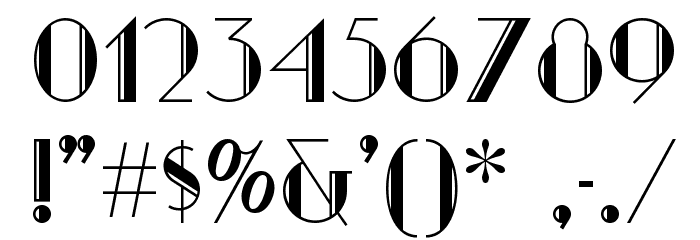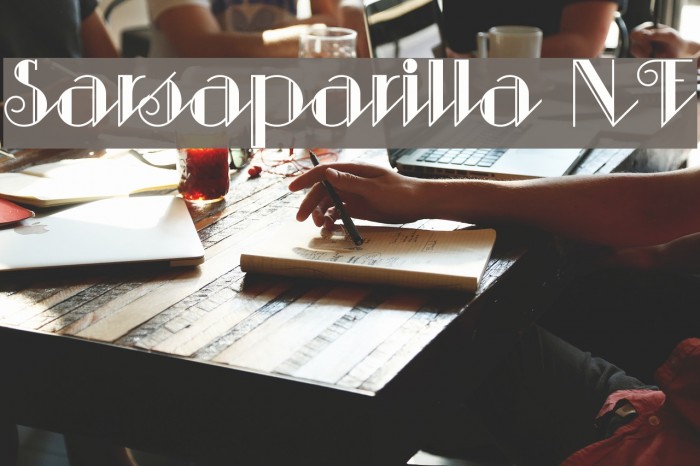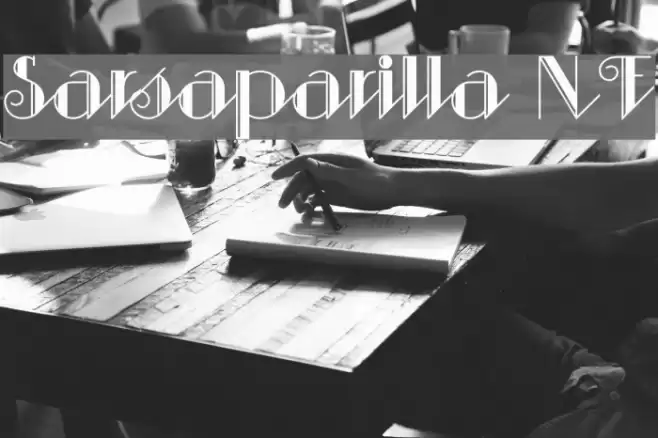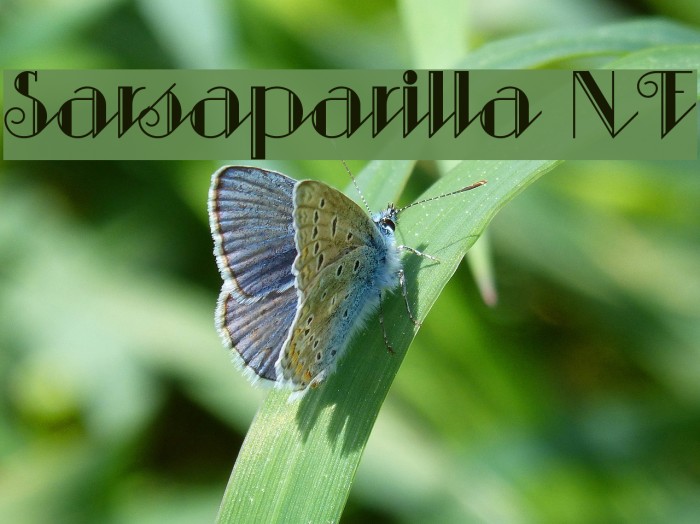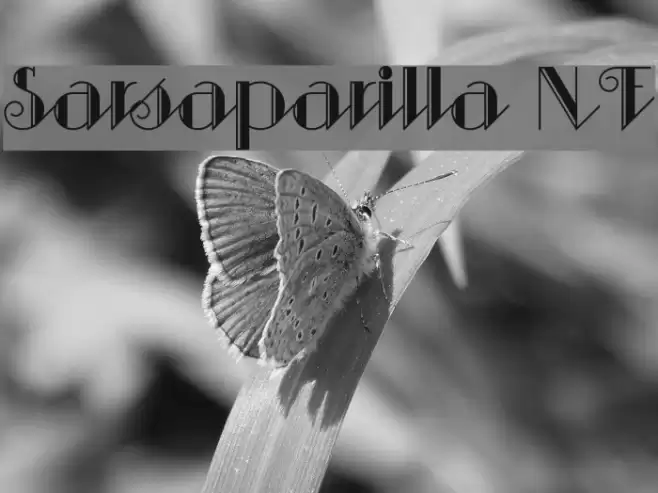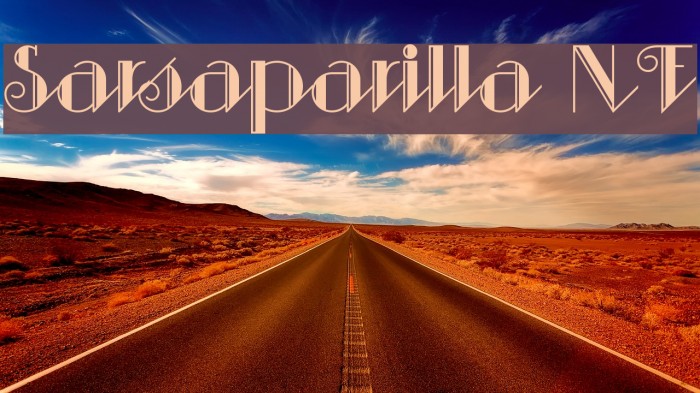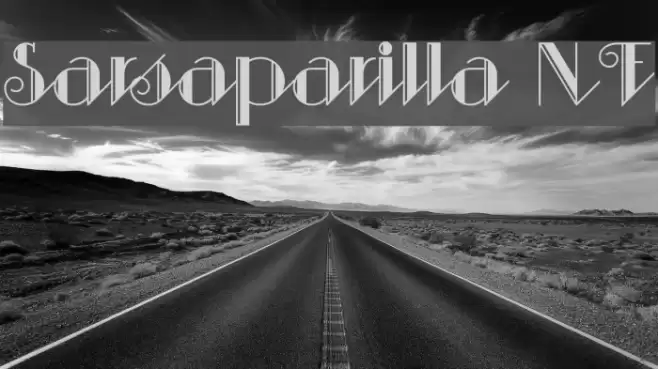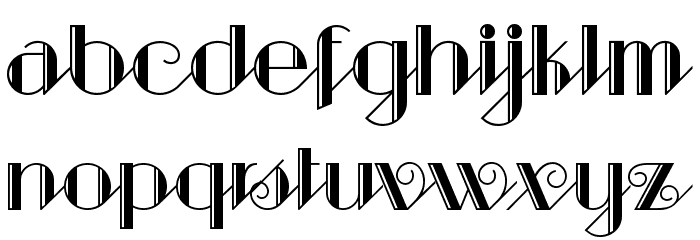
Sarsaparilla NF Font
Sarsaparilla NF Description
This font features a unique blend of geometric and decorative elements, characterized by its bold, angular lines and intricate curves. The uppercase letters exhibit a strong, architectural presence with sharp angles and a sense of symmetry, while the lowercase letters maintain a more fluid and whimsical style. The numerals are distinct and maintain the geometric theme, offering a cohesive look across all characters. Special characters are designed with flair, adding to the font's overall decorative appeal. This font is ideal for projects that require a touch of elegance and sophistication, while still maintaining a modern edge.
| Overall Style | Modern, Decorative |
| Proposed Projects | Ideal for branding, poster design, and decorative headings. |